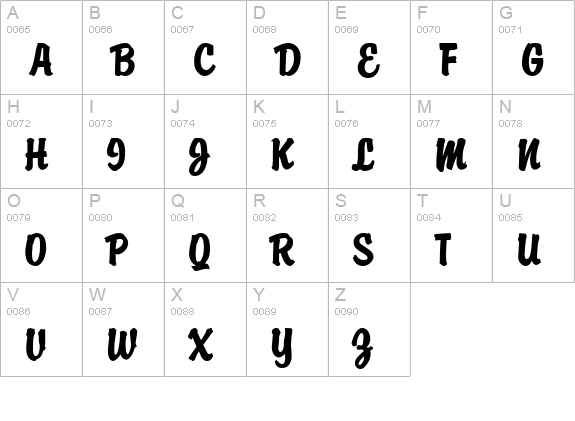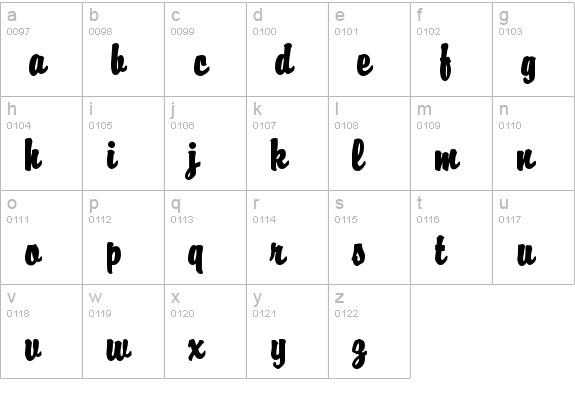
Brisk Extended Bold is a strong, high-contrast, extended-width variant in the Brisk typeface family \xE2\x80\x94 well suited to headlines, attention-grabbing titles, and strong calls-to-action.
Brisk Extended Bold font is a modern and stylish typeface that exudes confidence and impact. With its bold and extended design, this font commands attention and makes a strong statement in any design project. Perfect for headlines, posters, and branding materials, Brisk Extended Bold font strikes the perfect balance between professionalism and personality. The best part? Brisk Extended Bold font is available for free download at FontsMarket.com. Now you can elevate your designs without breaking the bank. Don't miss out on this incredible opportunity to add a touch of bold sophistication to your projects with Brisk Extended Bold font. Download it now and start creating stunning designs that stand out from the crowd.